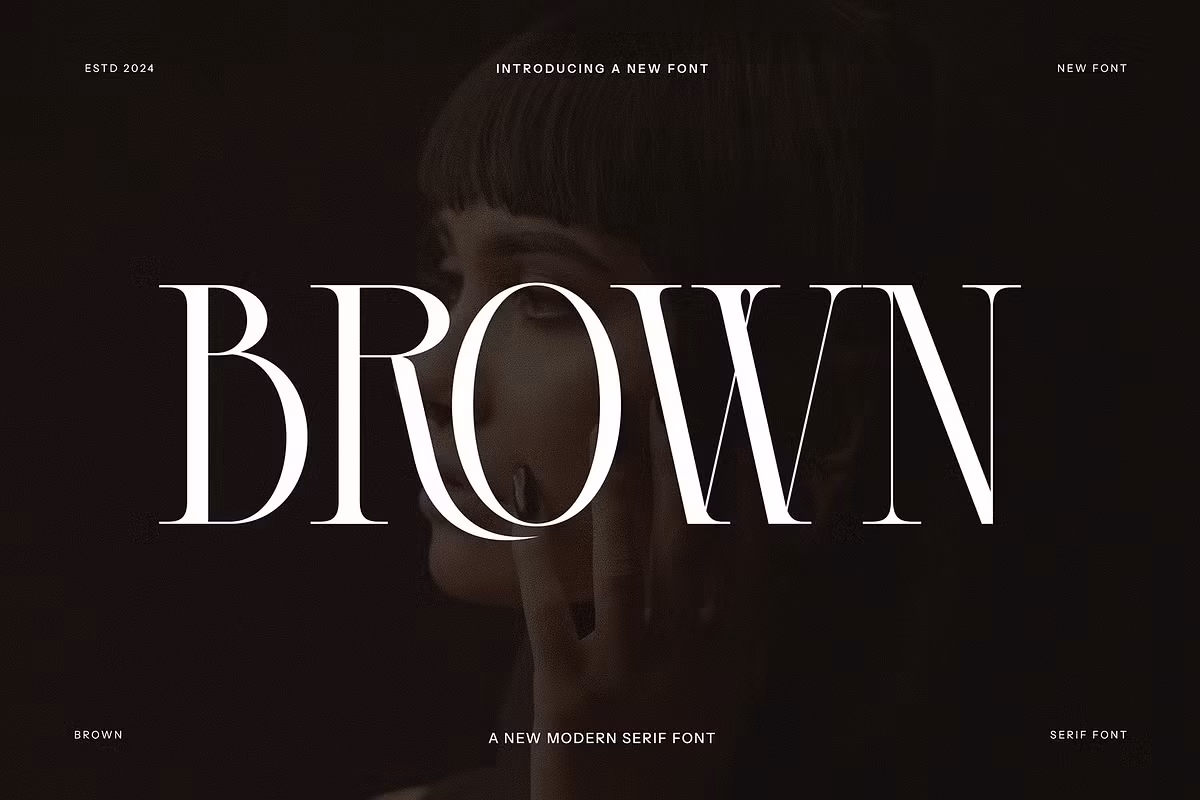
BROWN Modern Serif Font Free Download
BROWN Modern Serif Font Free Download is a bold, sophisticated typeface designed to bring a touch of elegance and refinement to your projects. With its modern design, sharp serifs, and high-contrast details, BROWN is perfect for branding, editorial design, advertising, luxury packaging, and sophisticated logos.
The clean lines and stylish form of BROWN make it ideal for both traditional and contemporary design aesthetics. Its versatility ensures it works across a wide range of projects, from fashion branding to editorial spreads and high-end product marketing.